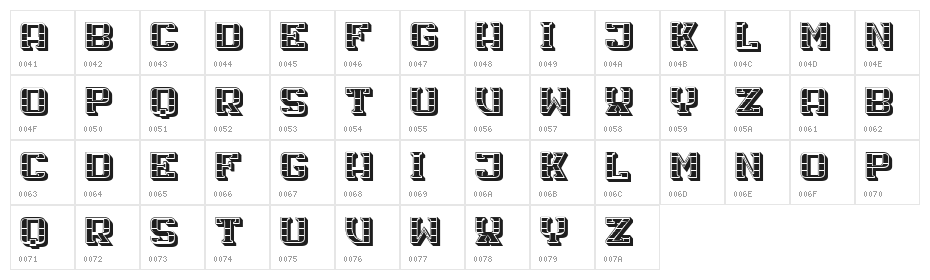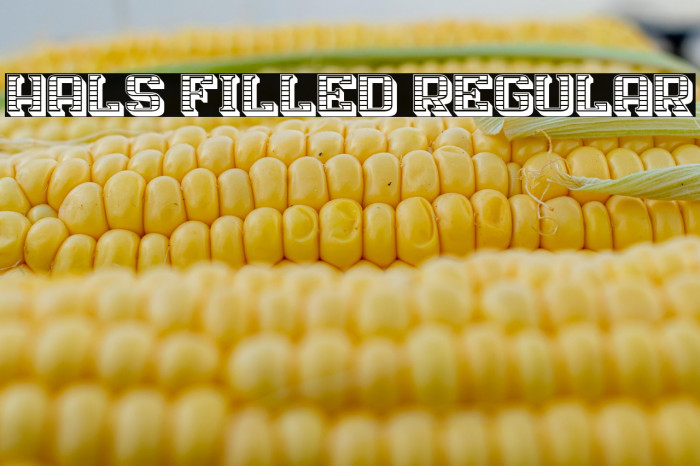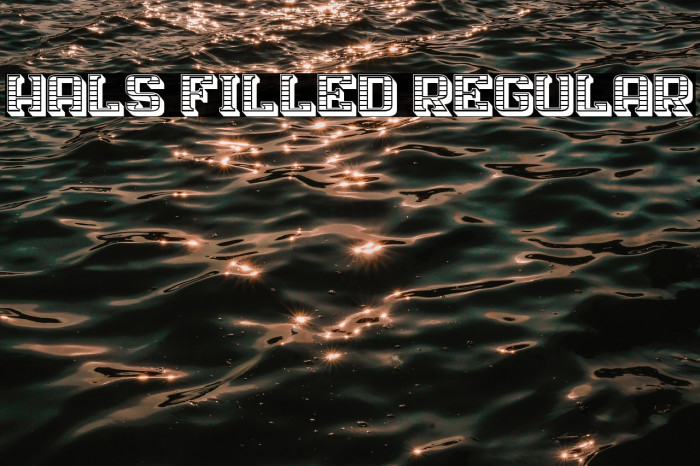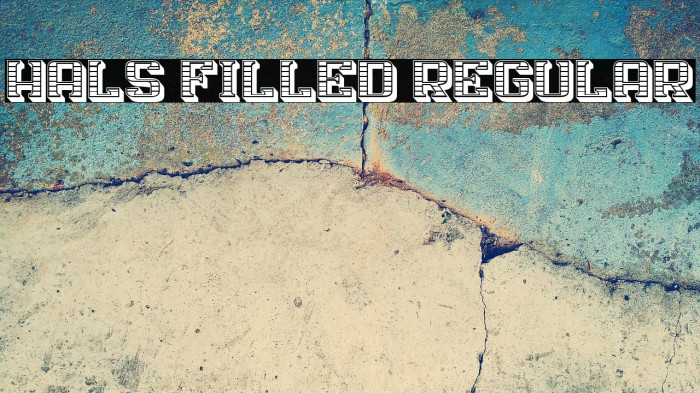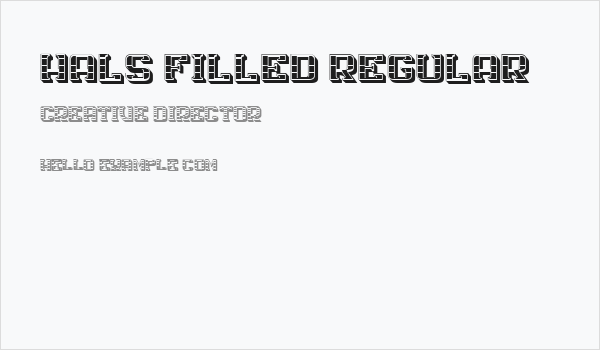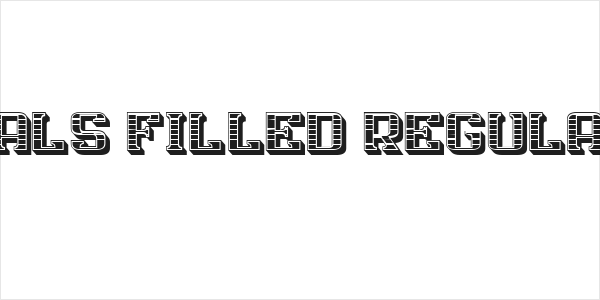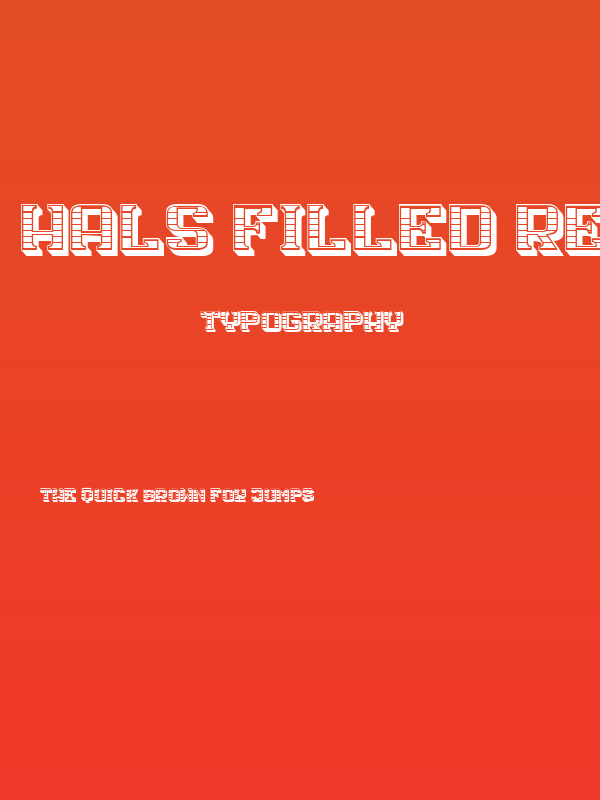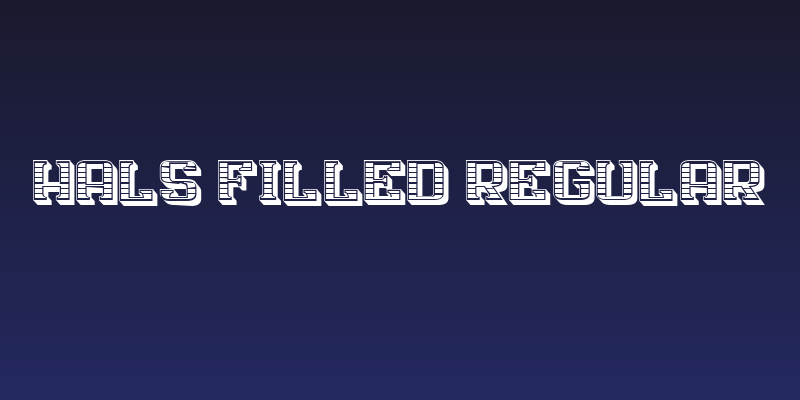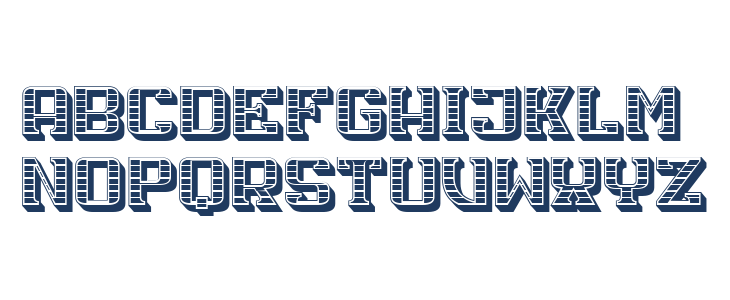
Hals Filled Regular Font
Hals Filled Regular Description
This font features a bold, decorative style with a filled, striped pattern within each character. The uppercase letters are designed with a strong, geometric structure, giving them a modern and eye-catching appearance. The font's unique design includes a three-dimensional effect, achieved through the use of shadowing and layering, which adds depth and visual interest. The characters are evenly spaced, providing a balanced and cohesive look. This font is ideal for making a statement in headlines or logos, where its bold and distinctive style can be fully appreciated.
| Proposed Projects | Ideal for use in headlines, logos, posters, and any design project that requires a bold and distinctive typeface. |